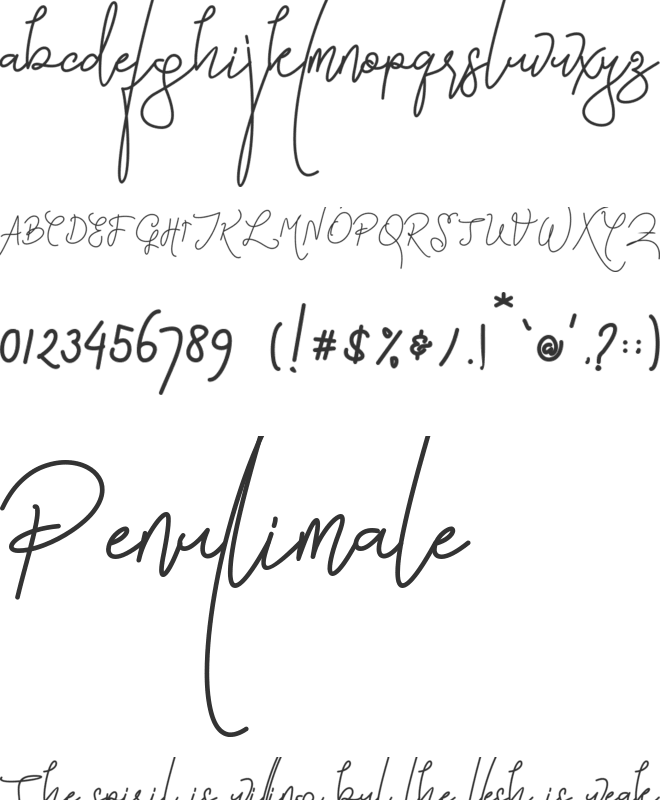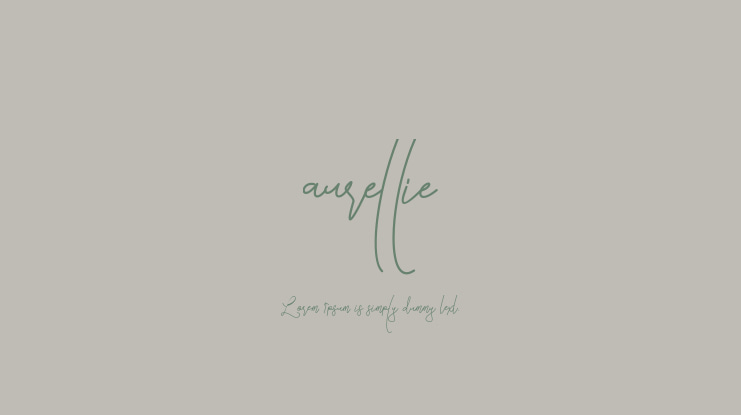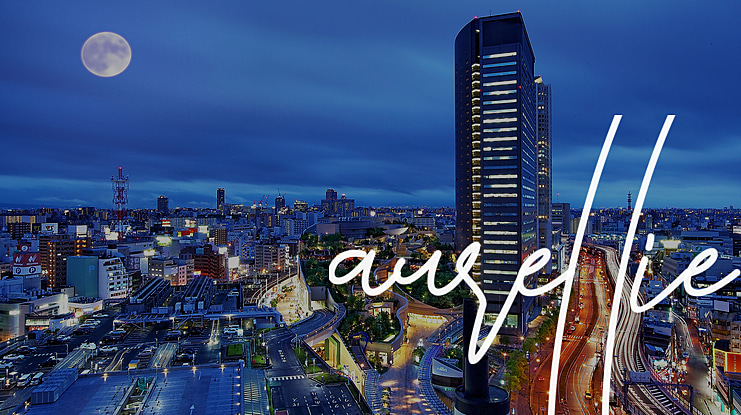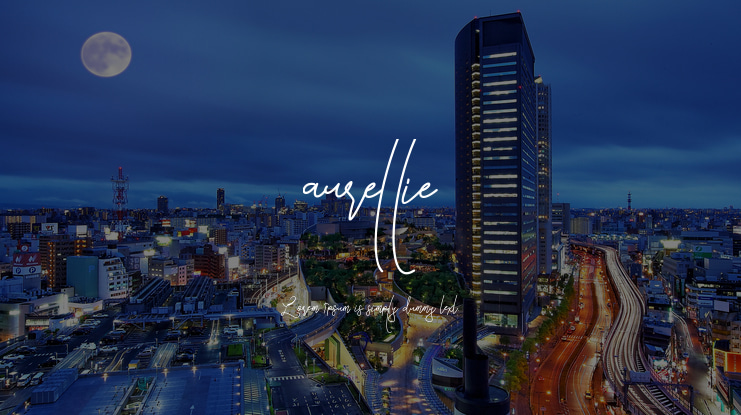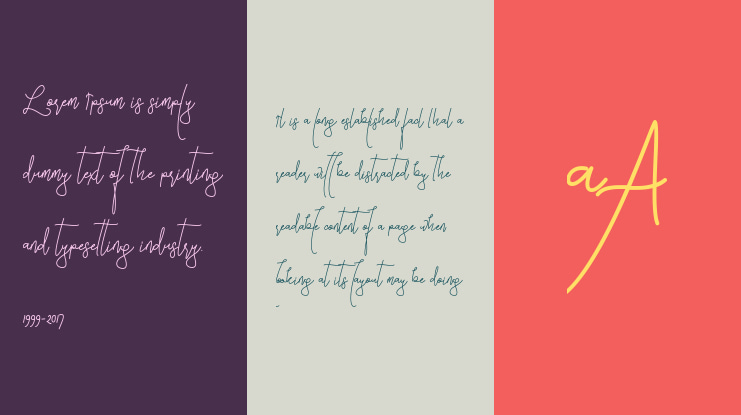
aurellie Font
It’s a sweet hand drawn typeface that will add a uniq touch to your work. It looks ravishing on every design which needs a personalized touch. Perfect for branding, invitations, blogs, planners. This font is PUA encoded which means you can access all of the glyphs and swashes with ease!